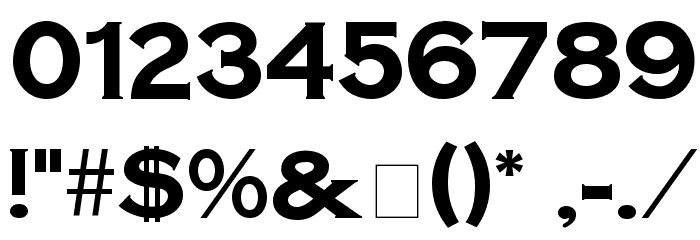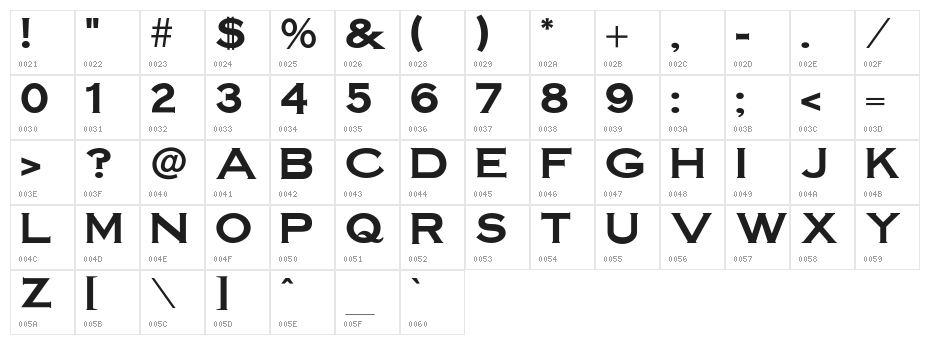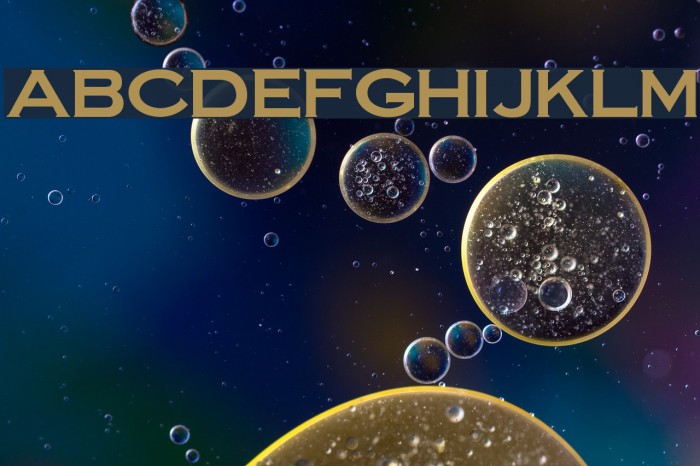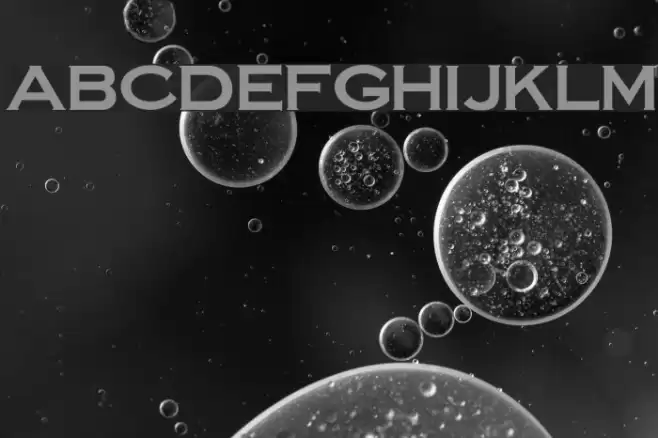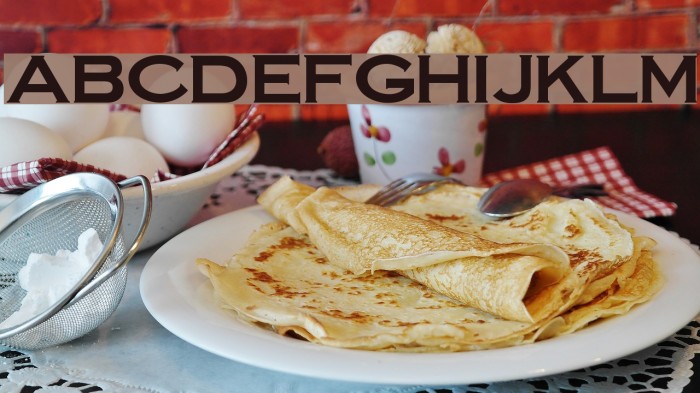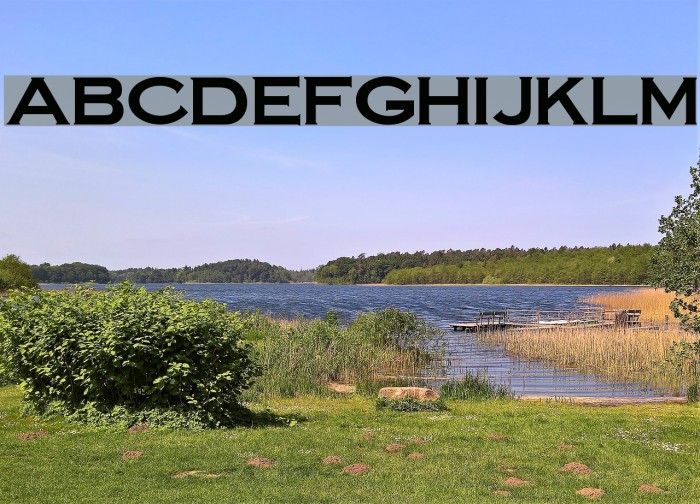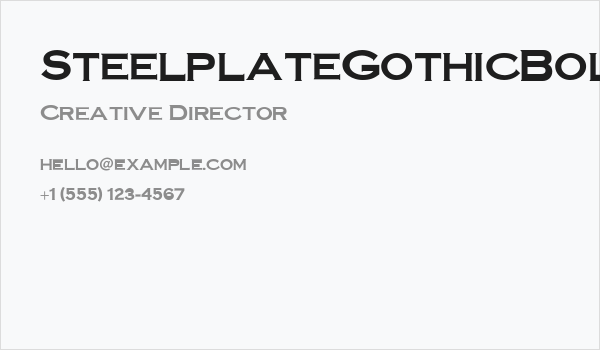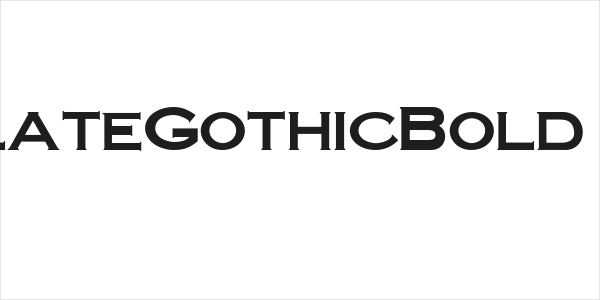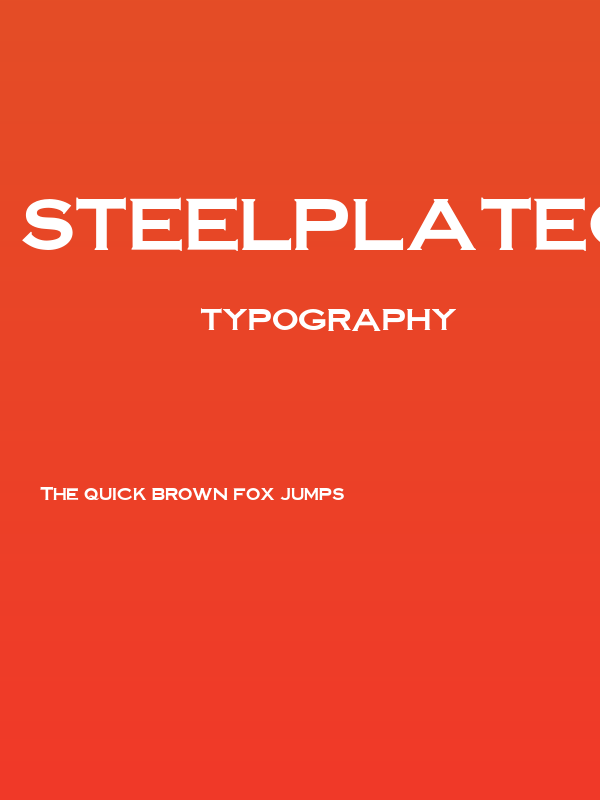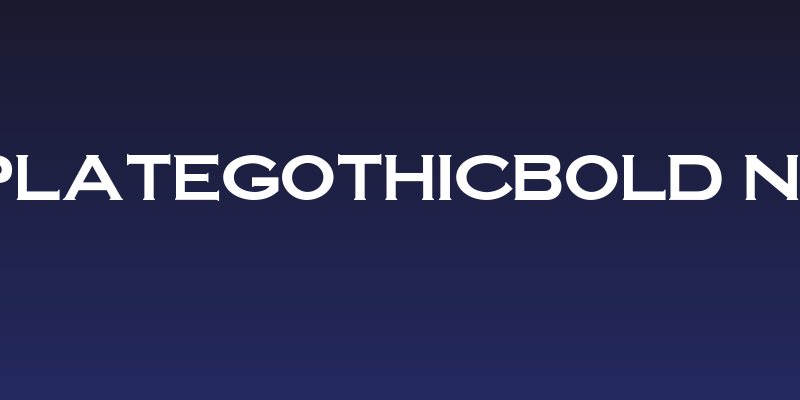
SteelplateGothicBold normal Font
SteelplateGothicBold normal Description
This font features a bold and robust design with strong geometric shapes and a modern aesthetic. The uppercase letters are uniform in height, providing a clean and structured appearance. The lowercase letters maintain a consistent style, complementing the uppercase with a slightly more compact form. The numerals are clear and legible, matching the boldness of the alphabet. Special characters are well-defined, adding versatility to the font. The overall design is suitable for impactful and attention-grabbing text, making it ideal for headlines and branding.
| Proposed Projects | Ideal for branding, headlines, posters, and signage where a strong visual impact is needed. |